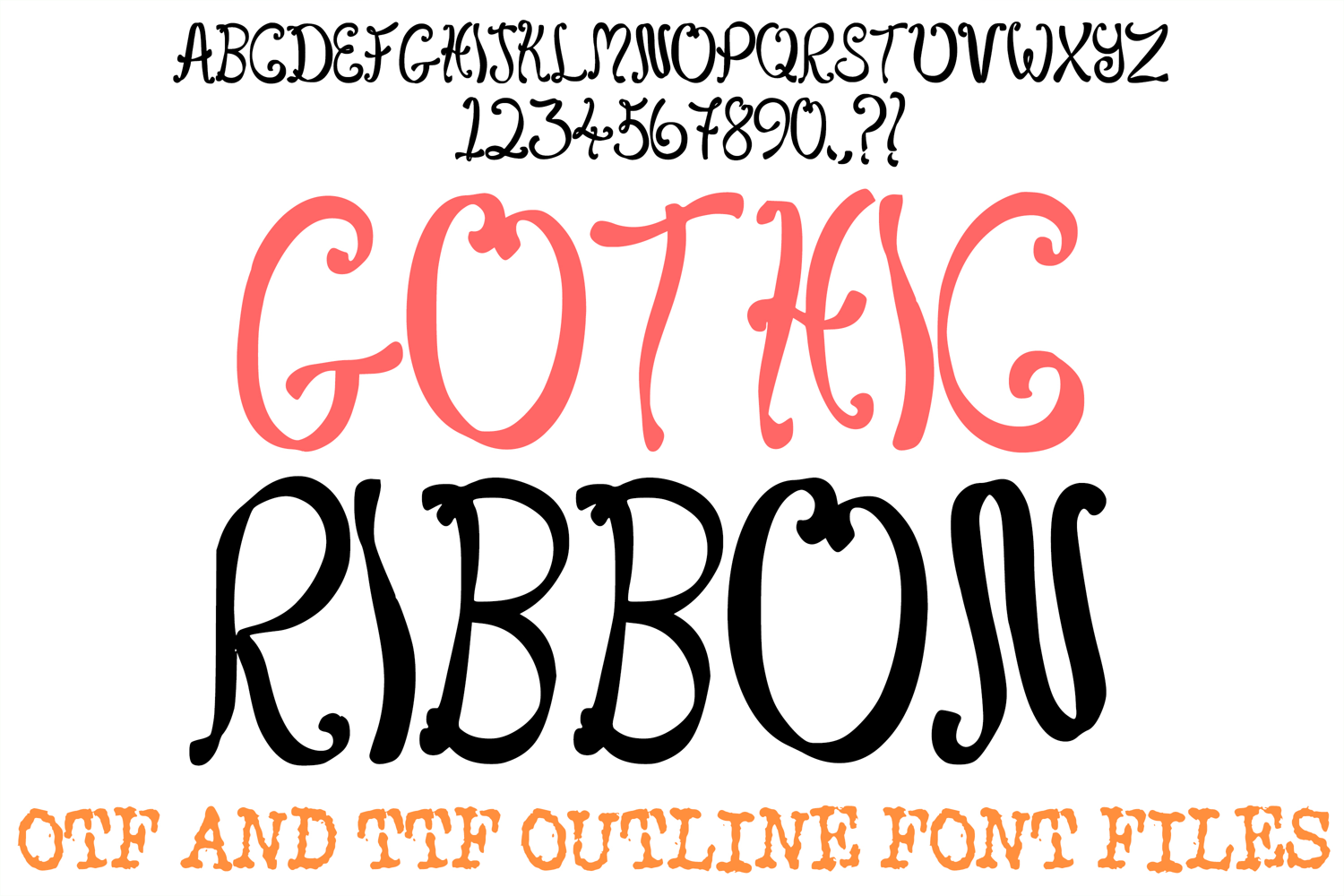
The Gothic Ribbon Font is a striking, hand-drawn display typeface that seamlessly blends the delicate charm of flowing ribbons with a dark, moody aesthetic. Featuring high-contrast strokes and dramatic, elongated flourishes, this font captures the appearance of tattered silk or liquid ink. It is the perfect choice for designers working on dark-romantic branding, alternative wedding stationery, Victorian-inspired scrapbooking, and whimsical spooky-season decor.
Each character is meticulously crafted with an artisan feel, combining soft loops with sharp, tapering points that evoke a "coquette goth" personality. Whether you are creating a logo for a boutique apothecary or designing unique social media graphics, the Gothic Ribbon Font provides a timeless, hauntingly beautiful touch to every project.
Why Your Designs Will Stand Out
Dark Romantic Flourishes: Every letter (A–Z) and number (0–9) features intricate curls and dramatic swash details that suggest a refined yet mysterious character.
Artisan Hand-Drawn Quality: The organic variation in line weights gives the alphabet a custom, illustrative look that sets your work apart from standard digital fonts.
Cute Goth Aesthetic: The balance of whimsical curves and bold black forms makes it ideal for "soft goth," "dark coquette," and alternative fashion branding.